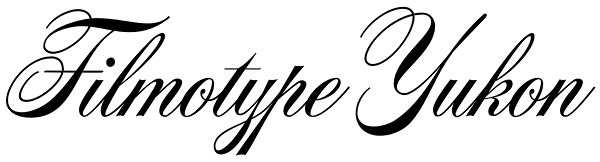
Filmotype Yukon
Filmotype Yukon is inspired by the classic Palmer style of penmanship made popular in the late 19th and early 20th centuries. Originally released in the late 1950s, Filmotype Yukon has been meticulously redrawn from the original font filmstrips and...